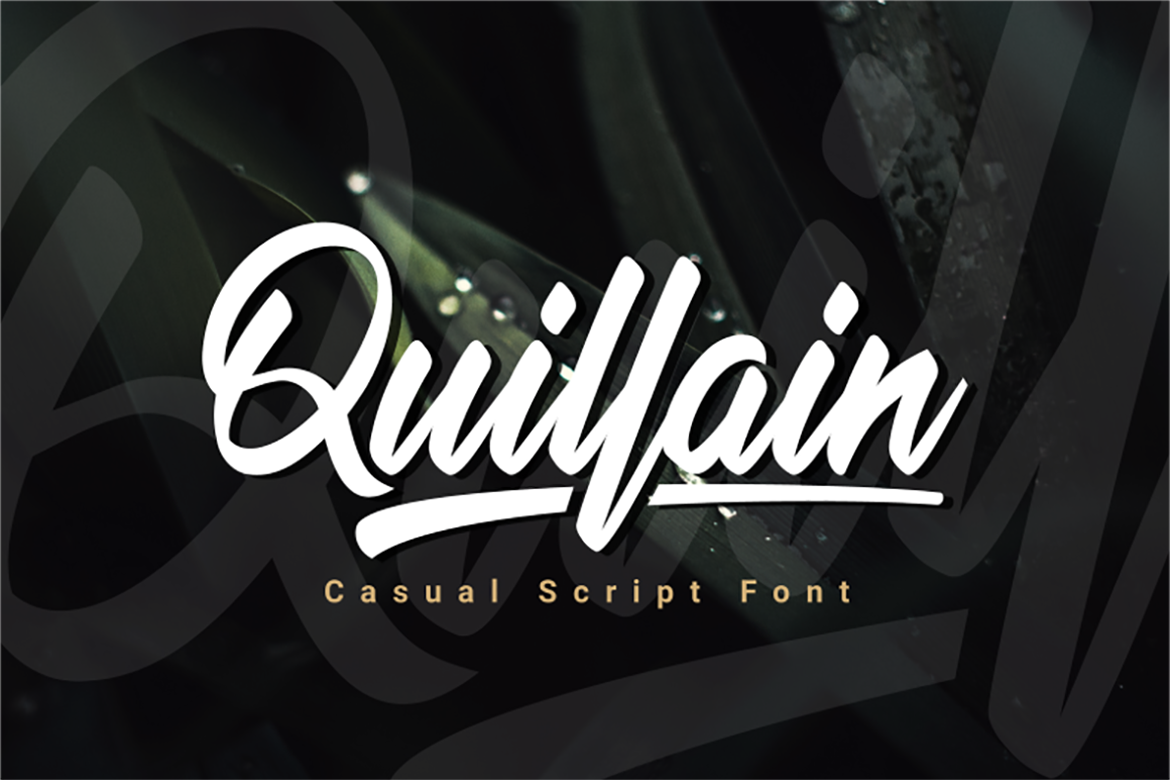
Quillain – Casual Script Font Font
About Quillain – Casual Script Font
Quillain is a fresh bold script that is very easy to use. This font is great for your next creative project such as logos, printed quotes, invitations, cards, product packaging, headers, Logotype, Letterhead, Poster, Apparel Design, Label, and etc.
Lauthan comes with uppercase, lowercase, numerals, punctuations, multilingual support and some variations on each characters include opentype feature (alternates and ligatures).